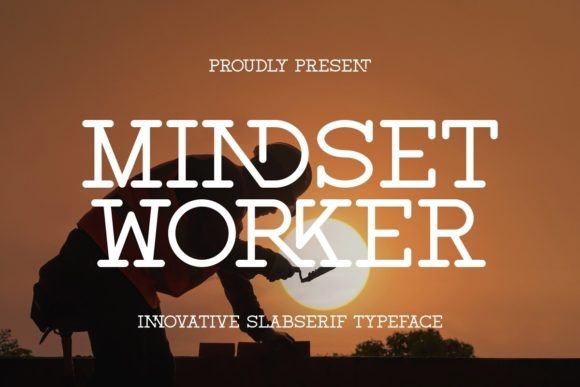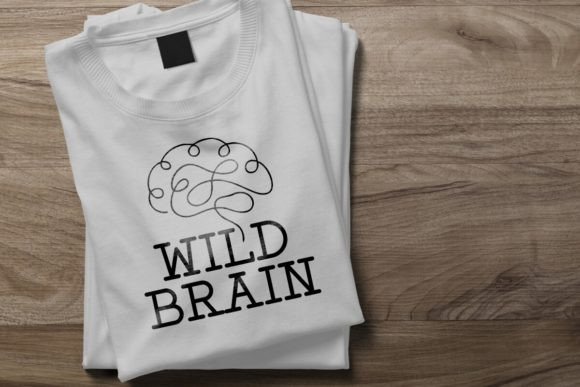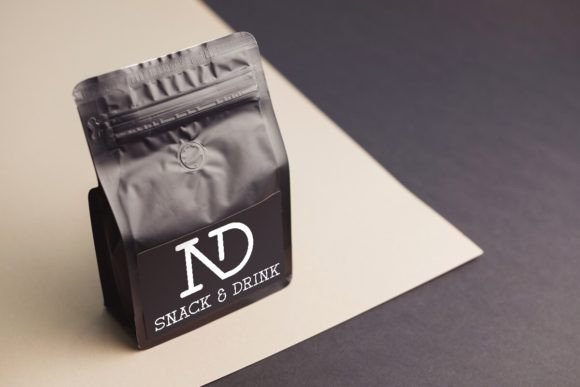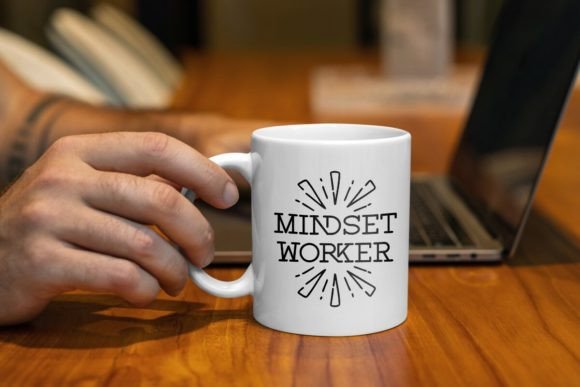
About Mindset Worker Font
Mindset Worker is an elegant and bold slab serif font. Fall in love with its incredibly versatile style and use it to create gorgeous wedding invitations, beautiful stationary art, eye-catching social media posts, and much more!